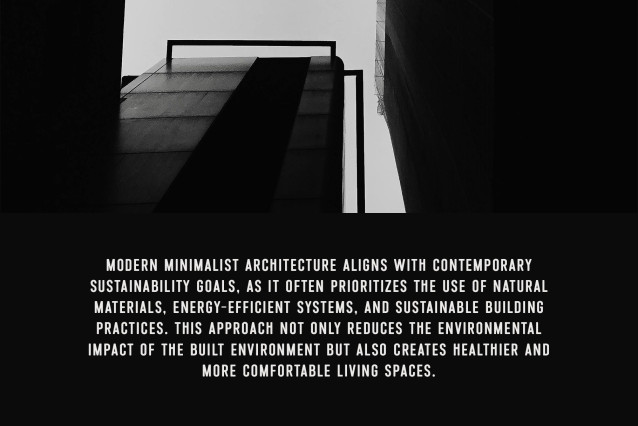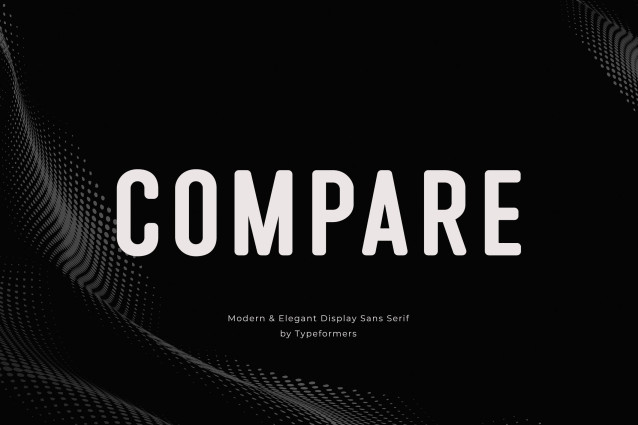
Compare Font
Compare Font is a modern and simple font, best used as a display for headings, logos, branding, magazines, product packaging and invitations.